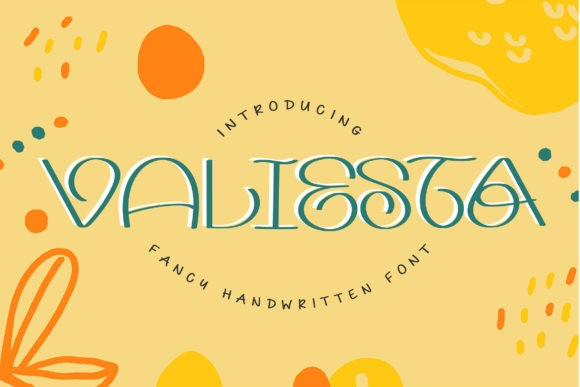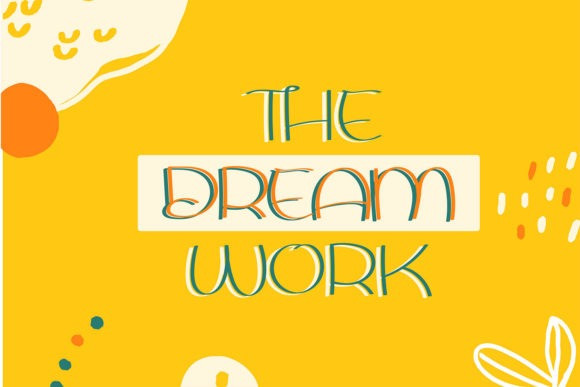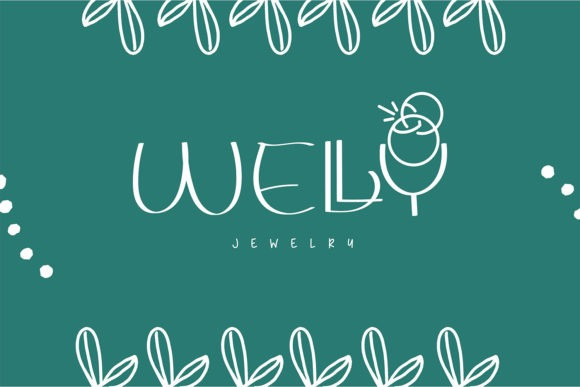
Valiesta Font
Valiesta is a cute, quirky and informal handwritten font. It is PUA encoded which means you can access all of the glyphs and swashes with ease!